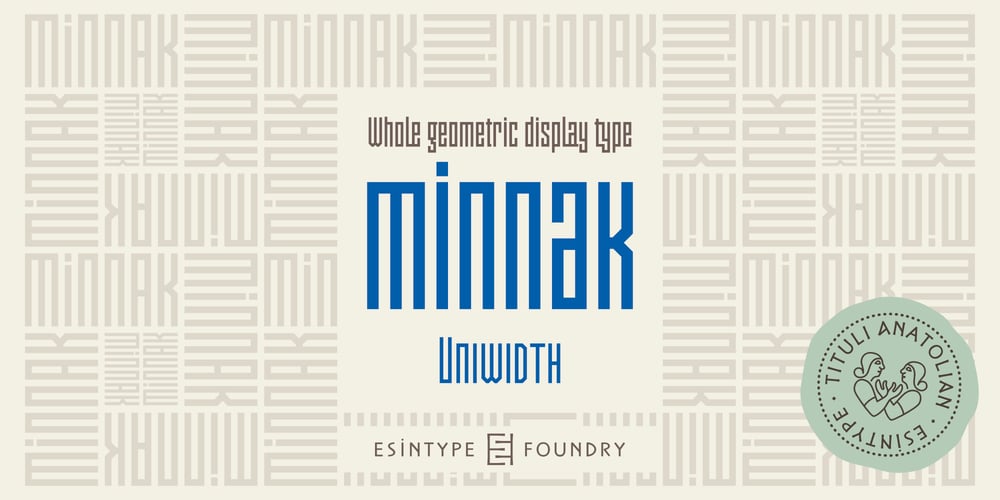
Minnak Font Family was designed by Ali Riza Esin and published by Esintype. Minnak contains 11 styles and family package options. Minnak, as a whole geometric display type is our take on Square Kufic (Makili) style Latin script fonts, comes in eleven weights with linear progression. It is an Uniwidth typeface at the core. From Hairline to Black, all multiplexed weights take up the same space in width and can be used interchangeably. Supports wide range of Open Type features, with many stylistic alternates in 12 context.Minnak is also have a close relation with pixel fonts, because in spite of its based on Makili forms, it all started as a pixel font in the drawing stage before further steps came into play. The key difference between Minnak and Makili style is that the latter must have the exact square counters with no diagonal strokes, and any other components of a letterform must conform to be proportional. Such style-specific requirements determine the overall dimensions of the glyphs and therefore, there can be only minor differences between the typefaces. In Minnak, counters are rectangular because of its narrow and condensed proportions, but the Makili form influence is still manifest. This impression is best confirmed with Medium weight where negative spaces and stem thickness are equal.Contrast and virtually no optical correction were presented, as characteristic of its genre had to have equal horizontal and vertical line thicknesses. As per the minimal and authentic look of the type, all glyphs are drawn as straight or only as 45-degree diagonal strokes. The representation of the ‘diagonalless’ approach is preserved by stylistic alternatives, making its similarity in visual aesthetics clearly visible. Marks and punctuation is another feature that doesn’t follow the strict rules of the origin style. Although not a pixel font, all building parts of the glyphs in Minnak share the same unit precision as they are designed with pixel equivalents in mind. Even space characters are designed to match glyph widths, meeting the demands of certain typesetting or multi-line lettering compositions.With its Pseudo Ancient and Runic alternates, extention parts and ornaments included in all weights, Minnak is suitable for branding, logo and monogram designs, the screen titles and headlines, packaging, posters, book covers and more, where it shines at big sizes. Its pixel font-like appearance makes it a significant choice for the modern compositions. Thanks to mostly uniform width design, it is possible to use Minnak also as a system for lettering. This feature can be used as vertical fitting of the letters between the lines.As a casual expression in Turkish, “Minnak” is one of the seven typeface designs in Esintype’s ancient scripts of Anatolia project, Tituli Anatolian series — representing Seljuk period in the medieval Anatolia and their tradition of architectural stone ornamentation.